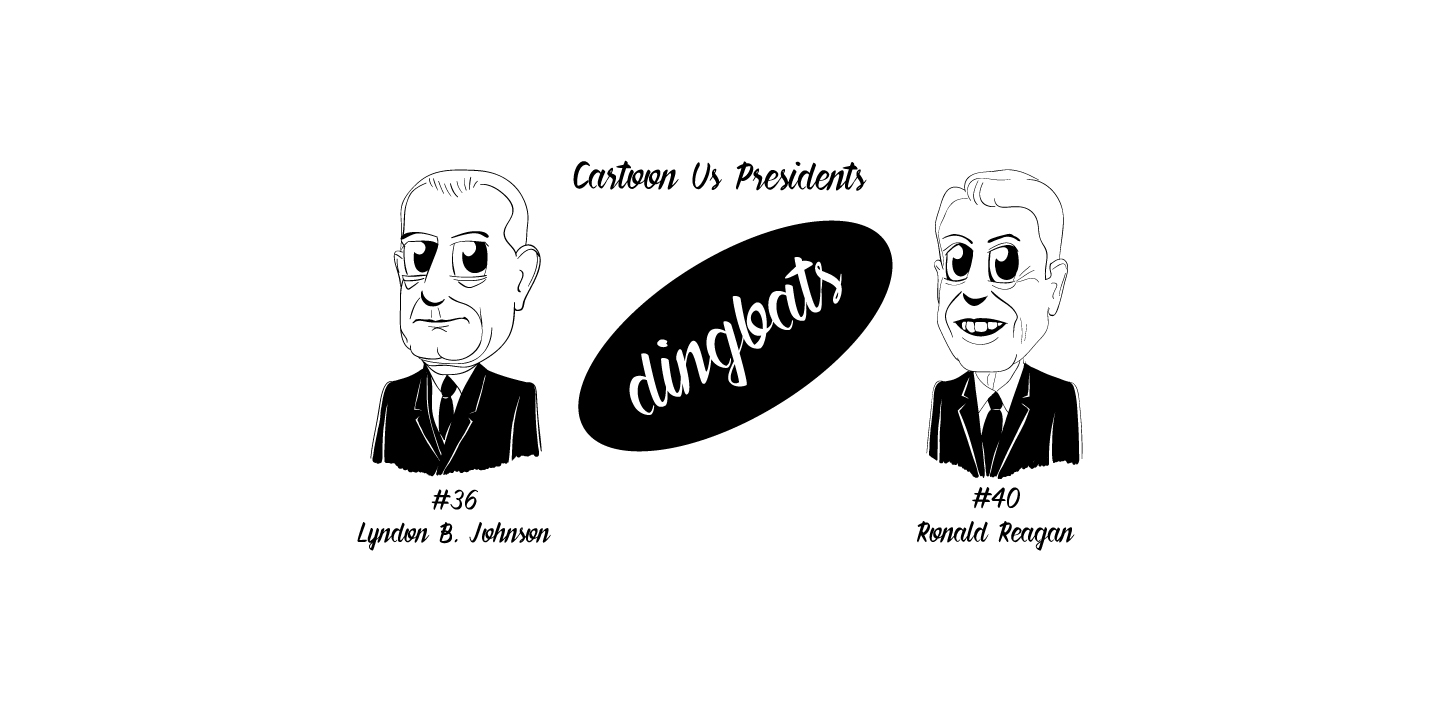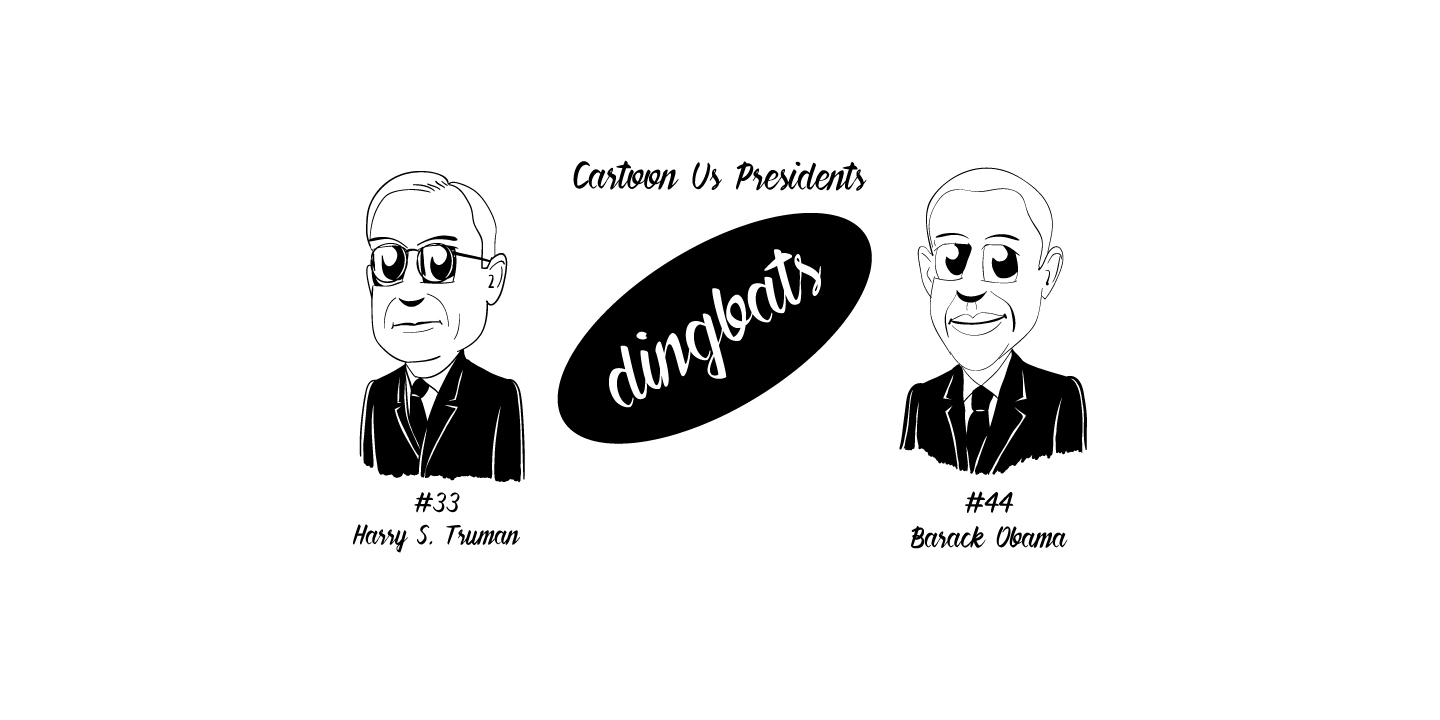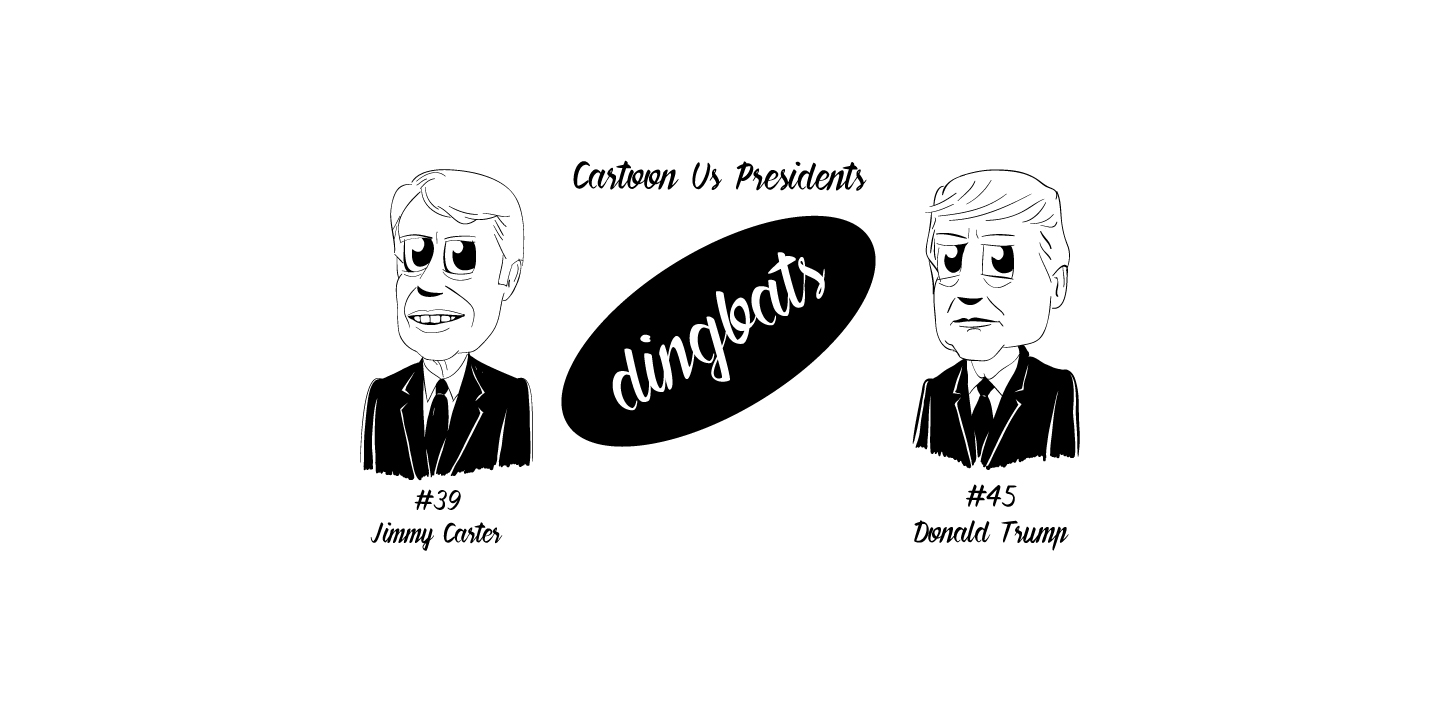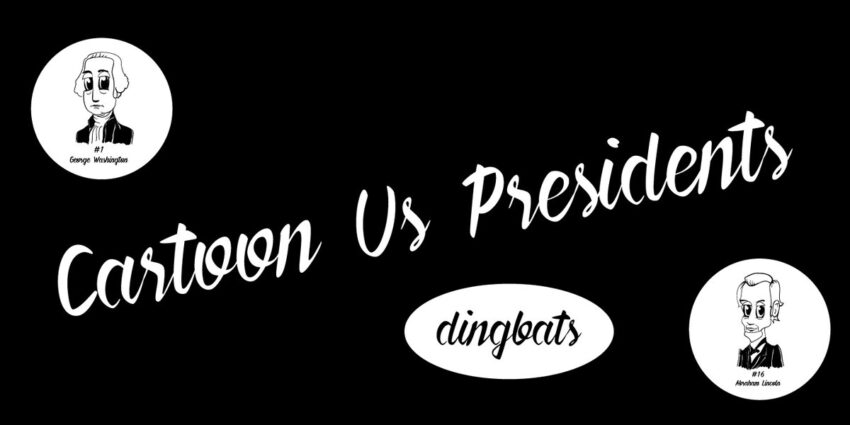
Introduction to Cartoon US Presidents Dingbats Font
This fun dingbats font contains handdrawn cartoons of all the US presidents to date.
The Cartoon US Presidents Dingbats font is a fun font that can be used for education or decoration .